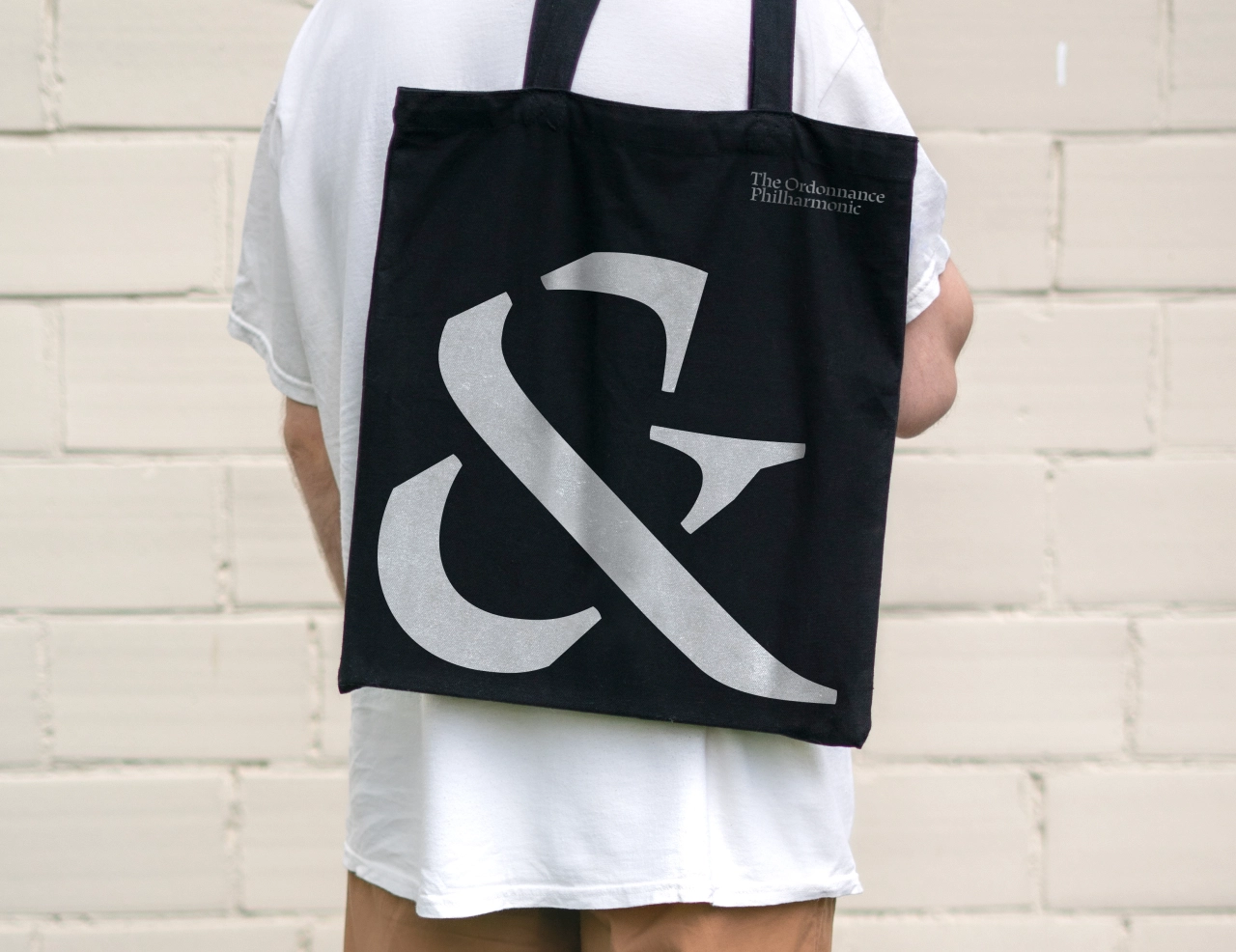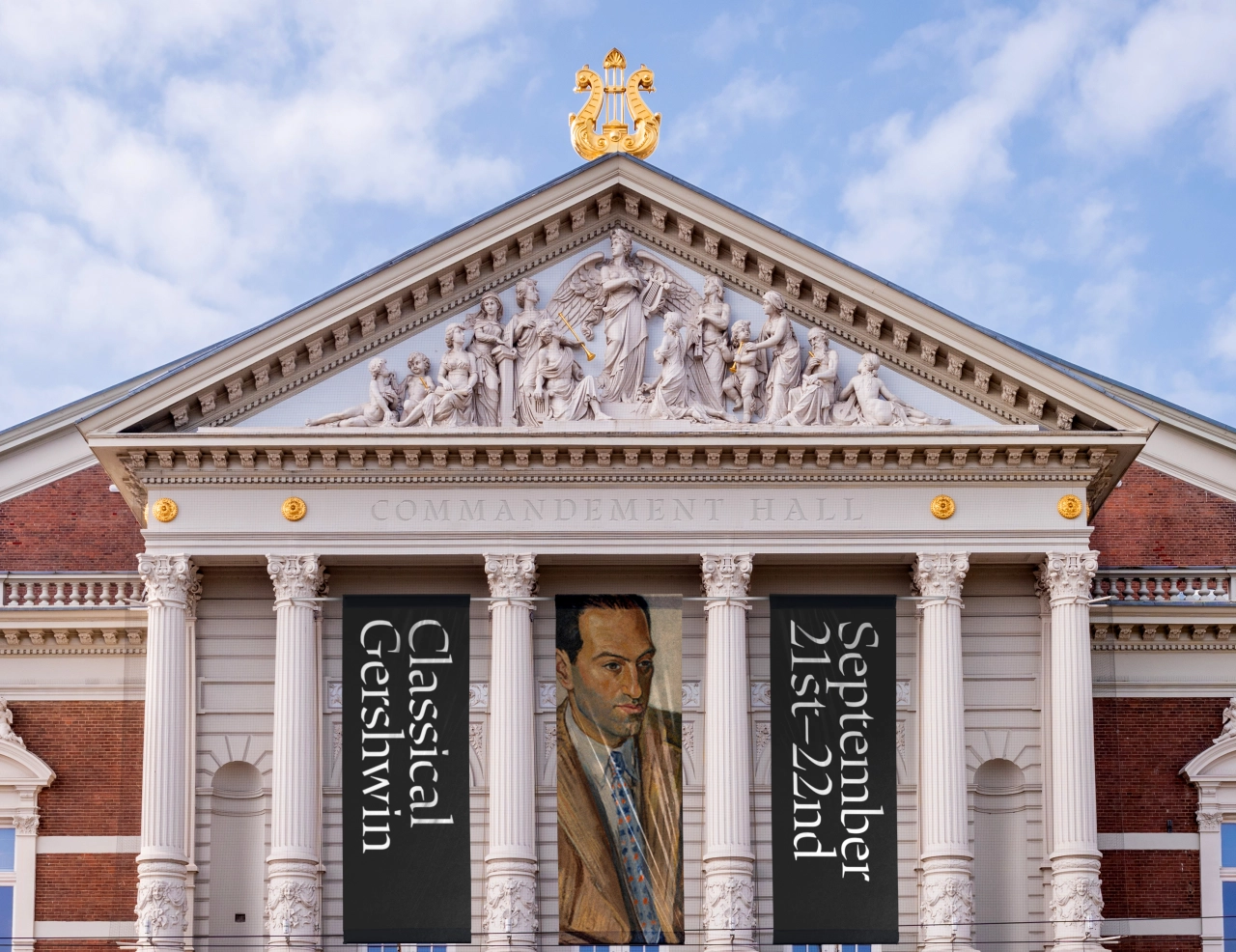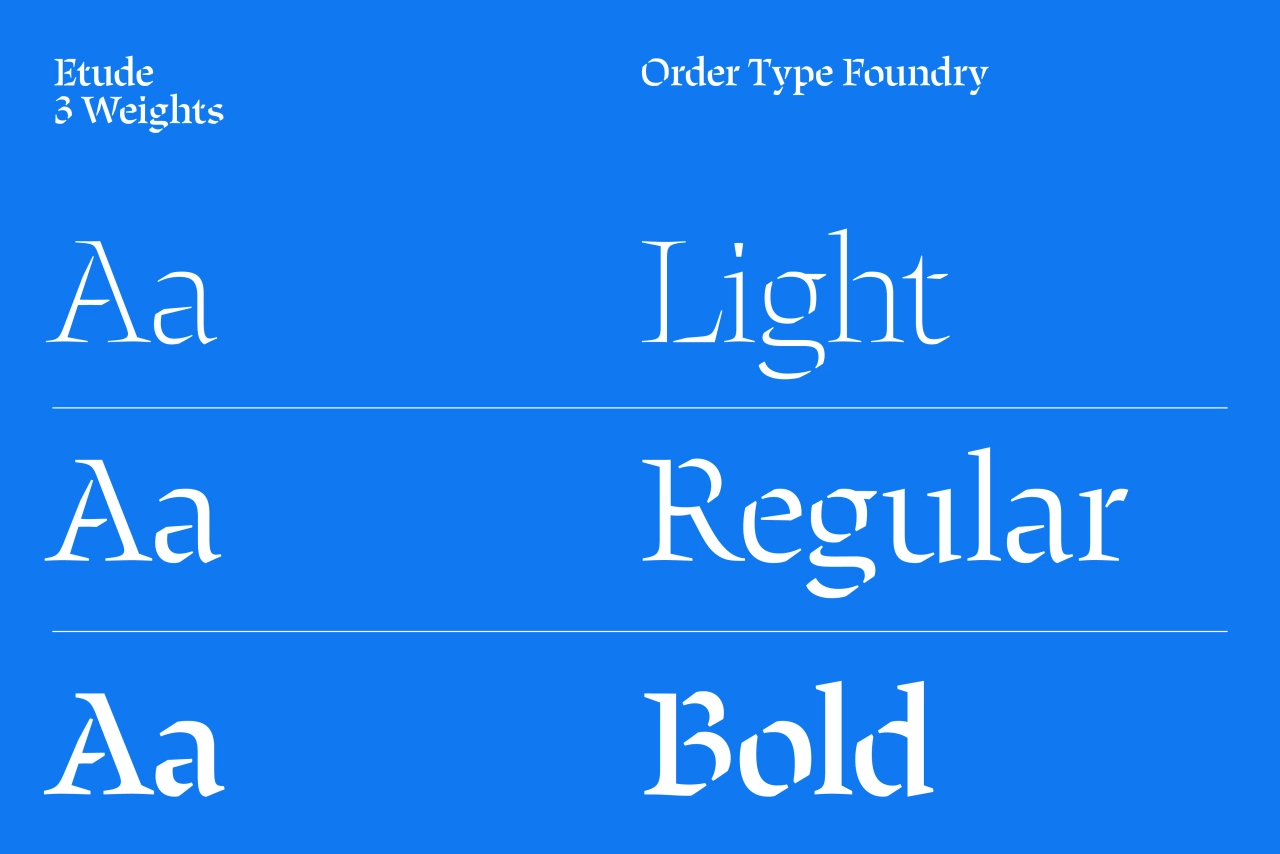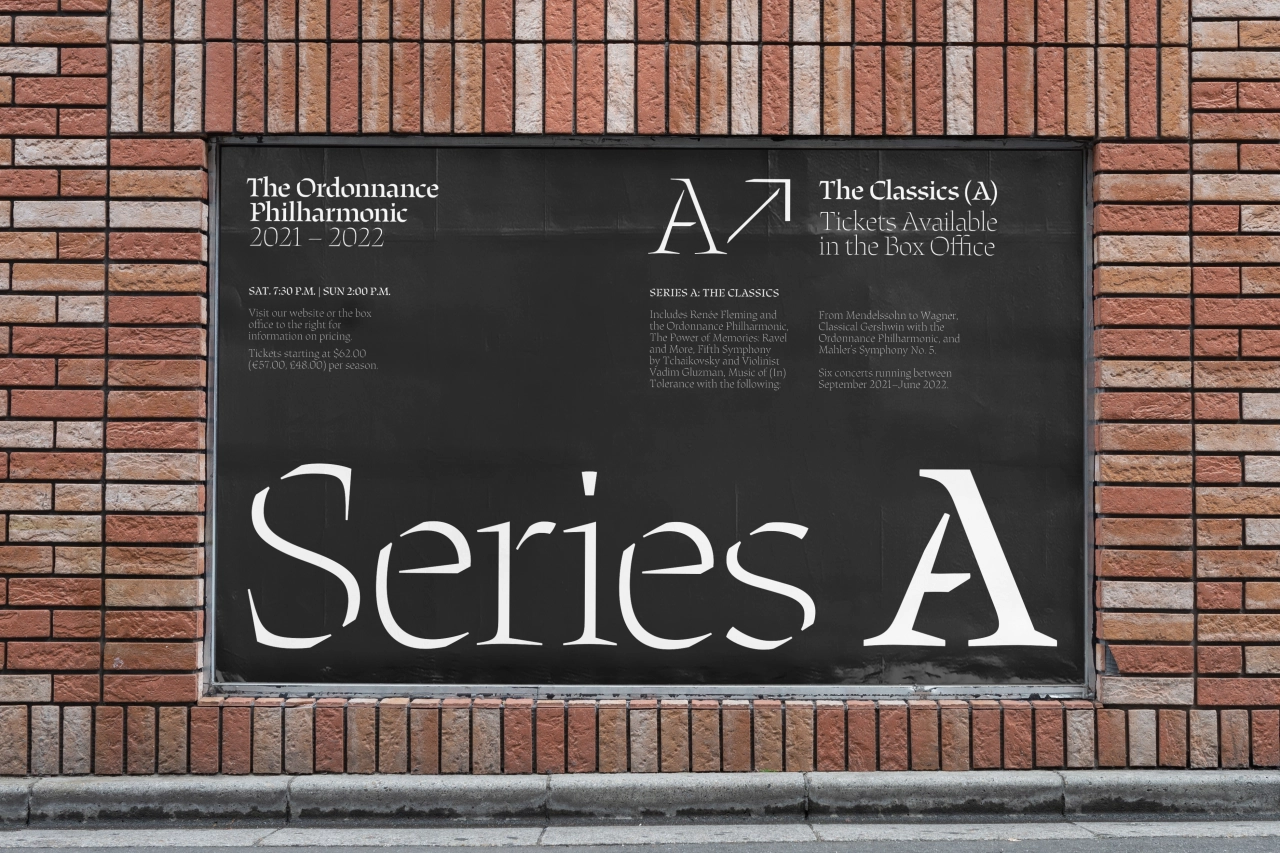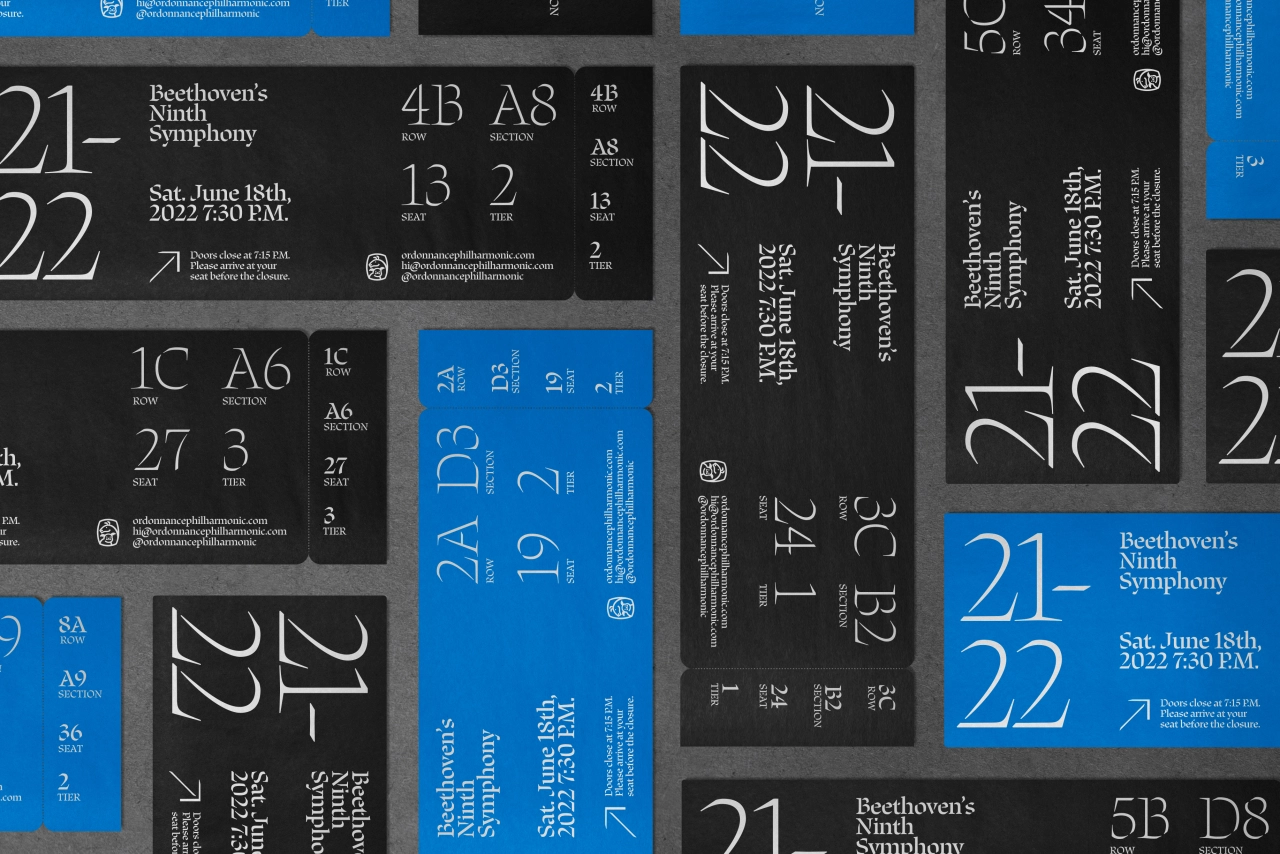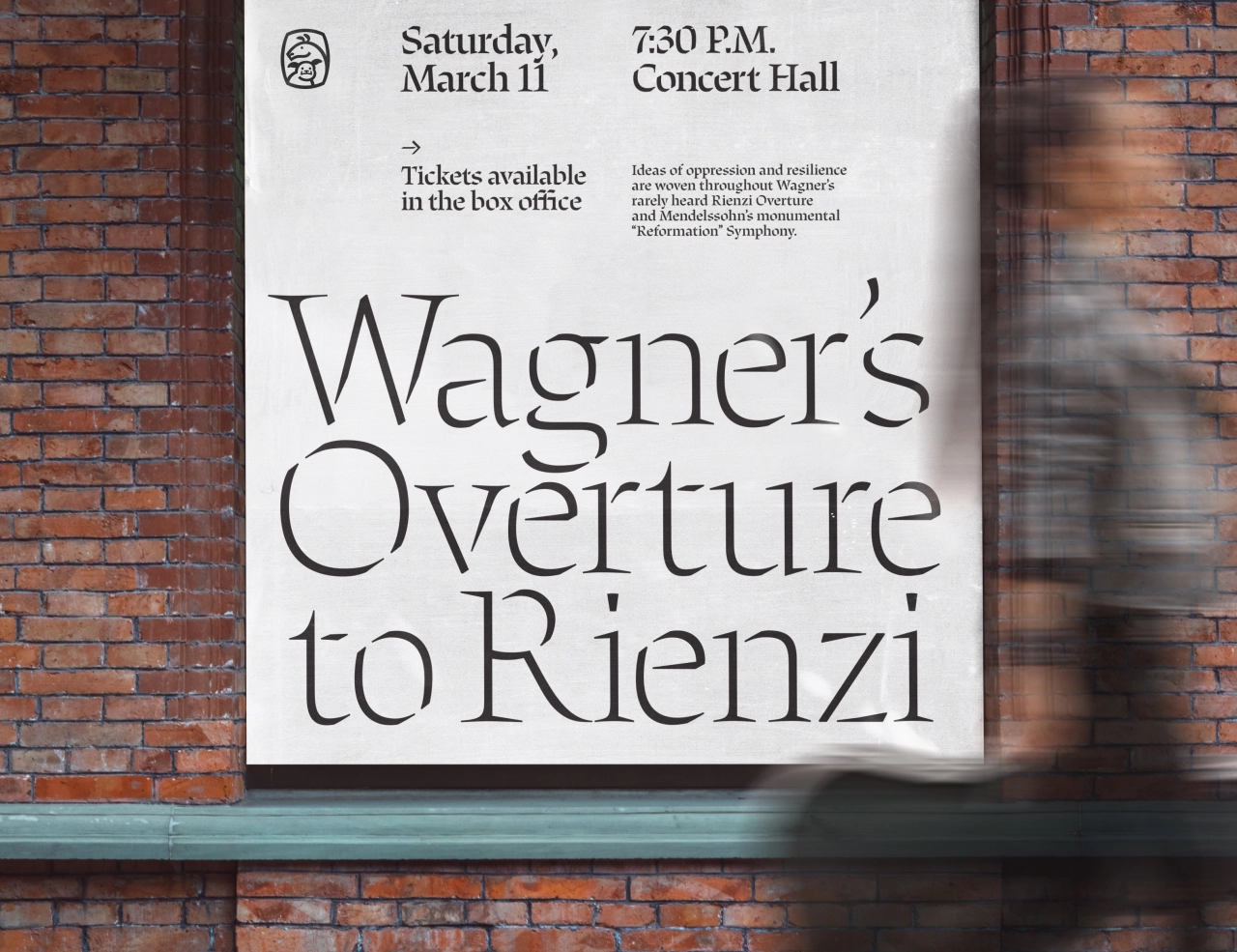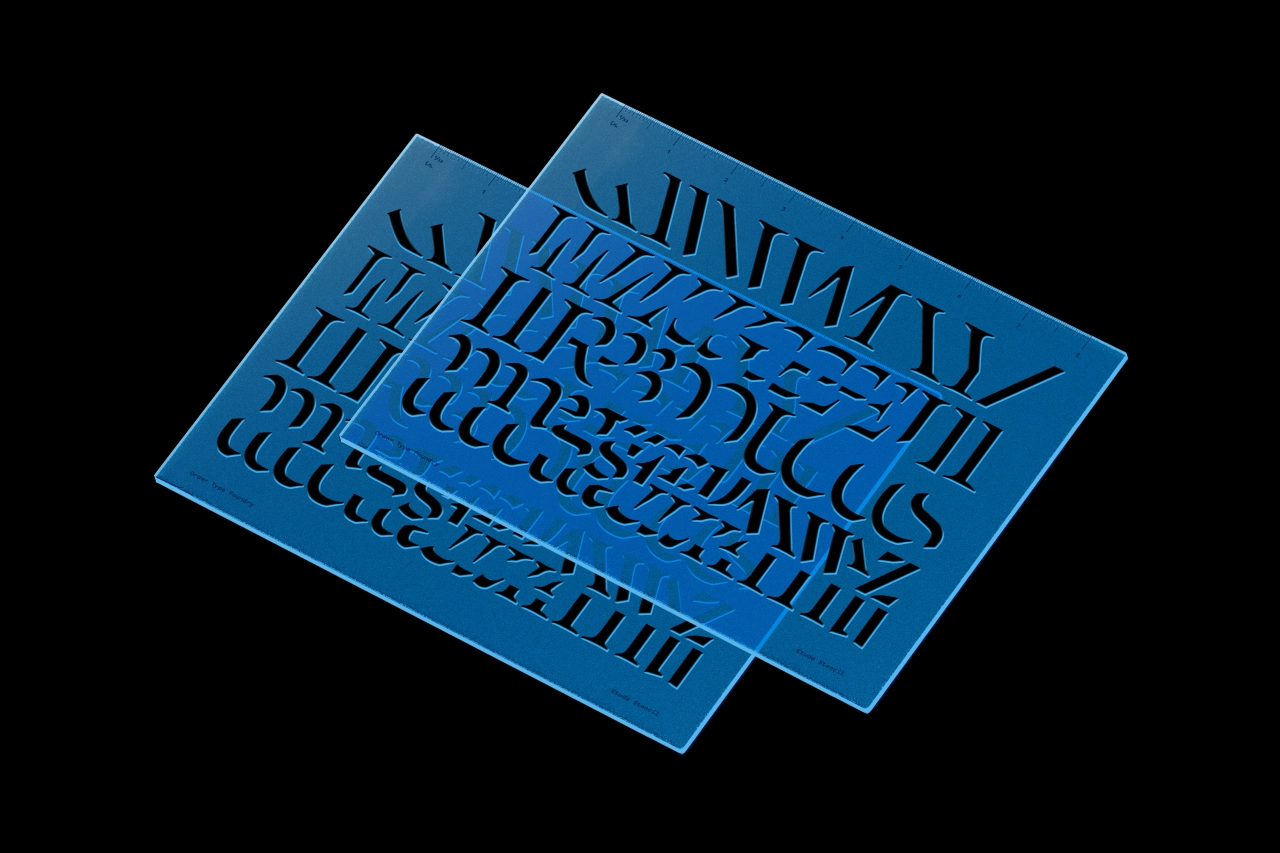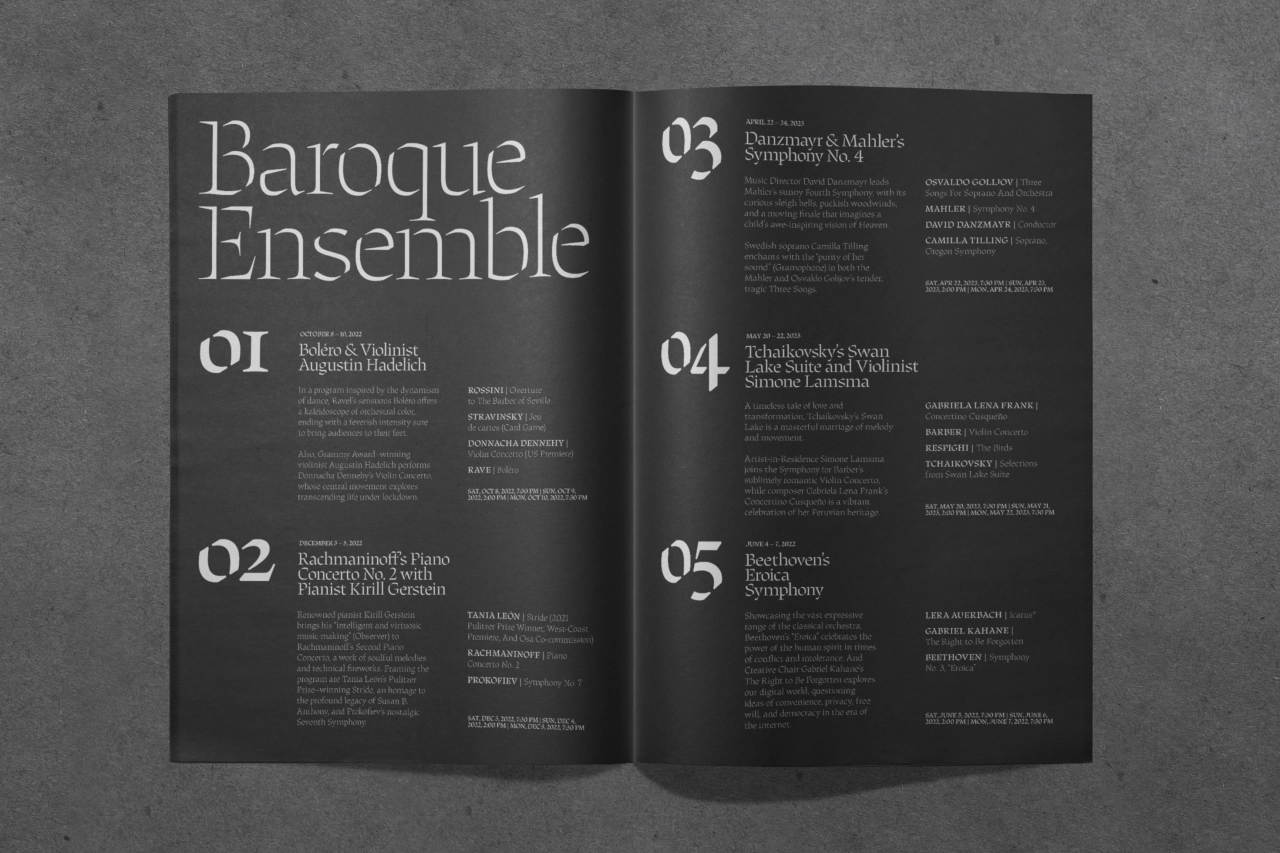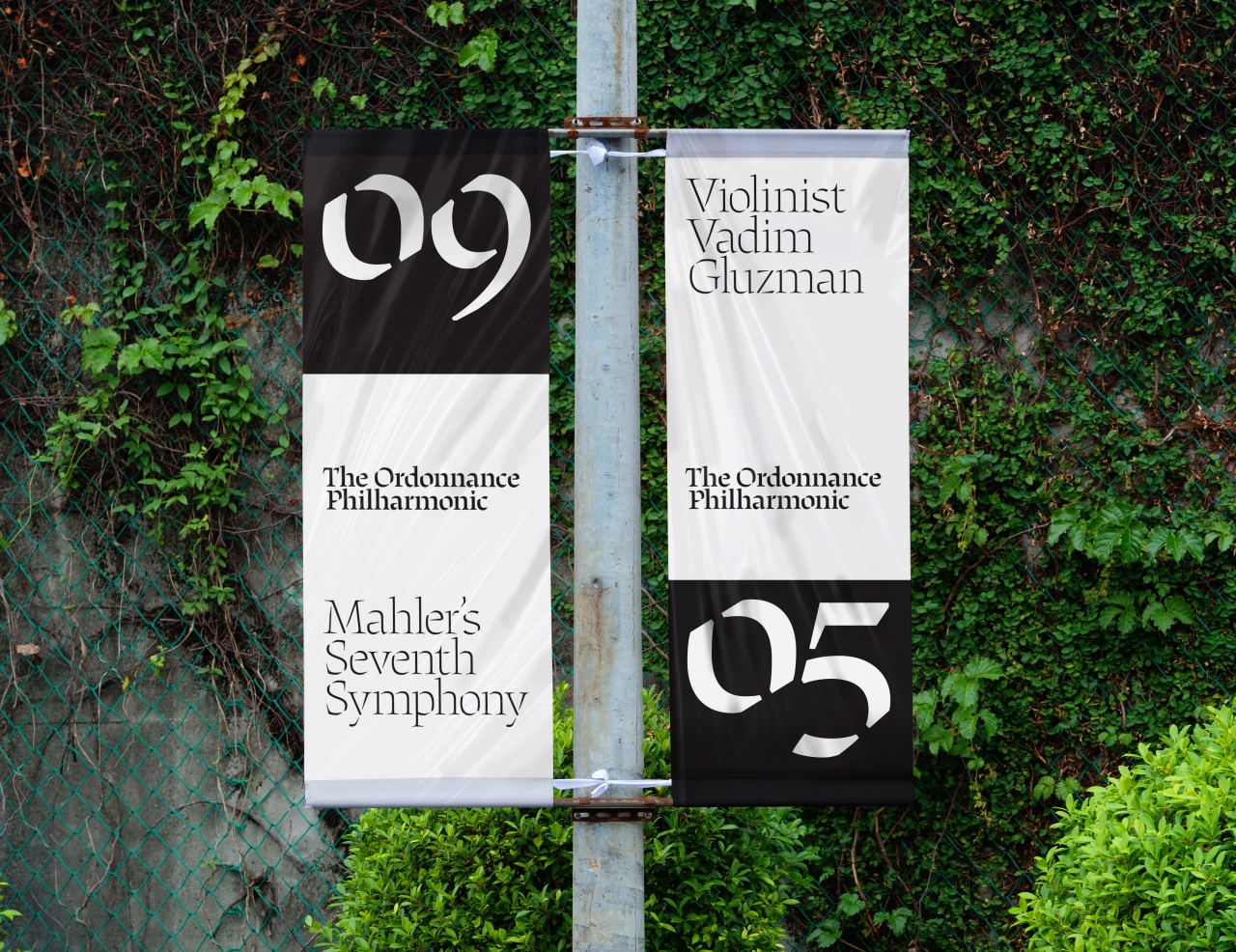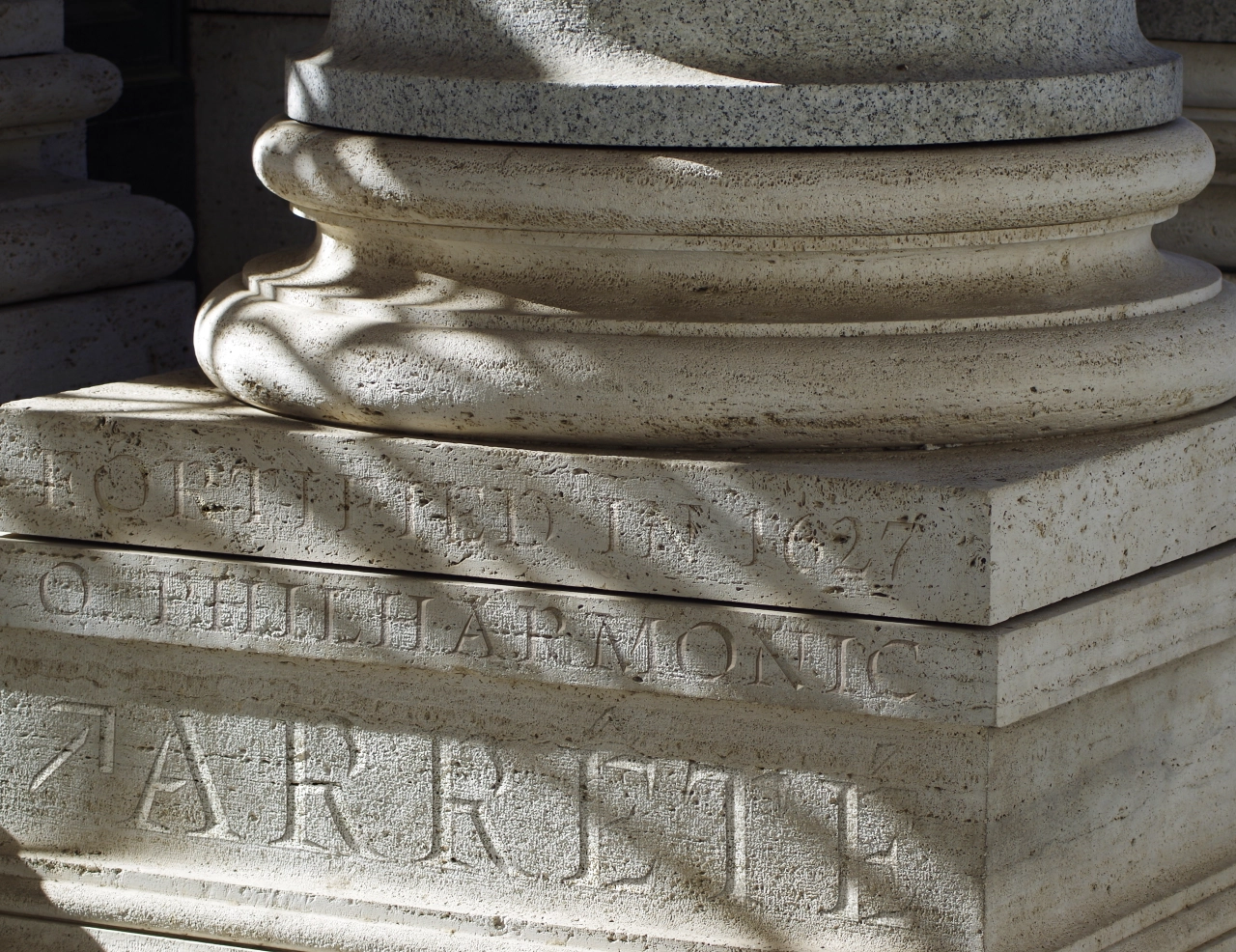
New typeface from Order is composed of forms inspired by music notation
This week has seen the launch of a new type design from Brooklyn-based design studio, Order. Named Etude, the original stencil typeface is a harmonious symphony of forms inspired by handwritten music notation.
Designed by Emily Atwood and mastered by Alphabet Type, Etude joins the ranks of typefaces at Order, a specialist design agency set up by Jesse Reed and Hamish Smyth. Taking its name from the French verb 'étudier', which is rooted in the meaning of 'study', Etude is influenced by broad nib pen marks and the work of French illustrator and scribe Jean-Pierre Rousselet.
This inspiration manifests itself across three distinct weights in the Etude type family. Cascading from Light through to bold, Etude crescendos from soft and delicate forms to loud and more prominent strokes on the page.
Emily explains that Etude started with the design of a translation contrast text typeface for sheet music notation. During this process, she noticed that typefaces and glyphs tailored toward music notation typically follow the "expansion contrast" model. It means that the thicks and thins are more vertically oriented. And it wasn't until discovering the broad, calligraphic music notation Hermann Zapf that she realised it could remain functional and recognisable.
"As I looked deeper into the history of music notation, it was clear that some of the first handwritten examples of music utilised the broad nib," she explains. "The square and diamond-shaped music notes that danced across the page were accompanied by a unique calligraphic stencil.
"The more remarkable examples of handwritten stencil music notation are by French Illuminator and Scribe Jean-Pierre Rousselet from the early 18th century. Rousselet's liturgical manuscript for King Louis XV in 1719 demonstrates stencilled forms that are defined by exposed calligraphic exit and entry points. This was unlike a typical broken stencil that is a derivative of a roman because it revealed the construction of the letterform rather than breaking it."
Other historical points of reference which helped to create Etude were the broken stencil examples from Louis Simmoneau's engravings from 1701 and Fred Smeijers' chisel-cut brass stencilled characters. The beginning of the sketching and digitising process was spent developing a construction logic for Etude, which could then be used across the entire typeface.
"The overarching conceit became quite simple in that thin entry points would start at the top left and move clockwise, and thick entry points would also start at the top left and move in a counter-clockwise direction," Emily reveals.
"It was important that this stencil celebrated the entry and exit points of a stroke and that the movement of the pen would be evident in each letter. Formally, Etude started to pick up on the subtle chiselled nature of letterforms reminiscent in Hermann Zapf's Musica Roman and the calligraphic, interrupted forms of Jean-Pierre Rousselet's work."
From here, the hand-stencilled letterforms and stencilled brass cuts of her inspiration were drawn on to create a custom drafting stencil place. Emily adds that this means: "The core shapes of the Etude typeface can be used to draw the full upper and lowercase Latin alphabet."
The result is an elegant, flowing typeface with plenty of chunky heft. This makes it versatile enough to suit a variety of uses beyond the ken of its inspiration points, although we're sure musicians especially will get a kick out of Etude's charms.